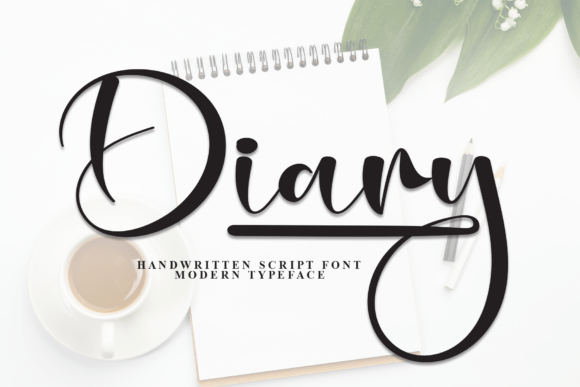
Discover the Timeless Charm of Diary Font
Have you ever been brainstorming ideas for a new design project and suddenly, inspiration strikes? The creative spark hits, and you envision the perfect font to bring your concept to life. For many designers, that moment is when they stumble upon the perfect font to convey their message. For us, it’s when we discovered Diary Font – a stylish script handwritten font that exudes elegance and sophistication.
Diary Font is a versatile tool for designers, perfect for adding a personal touch to branding, invitations, logos, and more. Its natural flow and elegant curves make it suitable for both formal and casual designs, adding warmth and creativity to any project. Whether you’re creating wedding invitations, greeting cards, or social media posts, Diary Font is a valuable asset in your design toolkit.
Diary Font Key Features
- Font Style: Diary Font is a handwritten, script font that resembles a personal diary entry.
- Unique Characteristics: Features a unique, hand-written feel with subtle imperfections, giving it a personal and emotive touch.
- Character Set: Includes a comprehensive character set, including uppercase and lowercase letters, numbers, and punctuation marks.
Designer Review: Diary Font
First impressions are everything, and Diary Font delivers with its elegant, handwritten feel. ✨ The subtle flourishes and irregularities make it perfect for adding a touch of personality to digital projects.
- ✨ Unique and expressive, making it ideal for creative projects.
- ✨ Excellent for use in headings, titles, and quotes due to its attention-grabbing nature.
- ✨ Highly customizable, allowing for a wide range of styles and moods.
However, there are some limitations to consider. ⚠️ The font’s inconsistent letterforms and varying line widths can make it challenging to read at small sizes or in large blocks of text. Additionally, the font may not be suitable for projects requiring a more formal or professional tone.
Overall, Diary Font is a beautiful addition to any designer’s toolkit, perfect for projects that require a touch of whimsy and personality. While it may not be the best choice for every project, it’s definitely worth considering for anything that needs a bit of flair.
Tips for Getting the Most Out of Diary Font
Here are some tips for getting the most out of Diary Font:
1. Use it in conjunction with other design elements to create a cohesive look.
2. Experiment with different font sizes, colors, and styles to achieve the desired effect.
3. Use Diary Font for titles, headings, and body text to create a consistent look.
4. Consider pairing Diary Font with other fonts to create a unique and interesting design.
Diary Font is commonly used in:
1. Journaling and scrapbooking projects.
2. Designing invitations and greeting cards.
3. Creating digital art and illustrations.
4. Writing and publishing books and
Alternatives to Diary Font for Designers
Lato is a sans-serif font that is highly legible and versatile. It is ideal for use in body text, headings, and titles. Lato is a great alternative to Diary Font because it has a similar feel, but with a more modern and clean look.
Arimo is a sans-serif font that is designed for use in digital media. It is highly legible and has a neutral tone, making it suitable for use in a variety of contexts. Arimo is a good choice when you want a font that is similar to Diary Font, but with a more neutral and technical feel.
The recommended font size for the Diary Font is between 12pt and 24pt. This range provides optimal readability and legibility for most design applications. However, you can adjust the font size to suit your specific design needs and preferences.